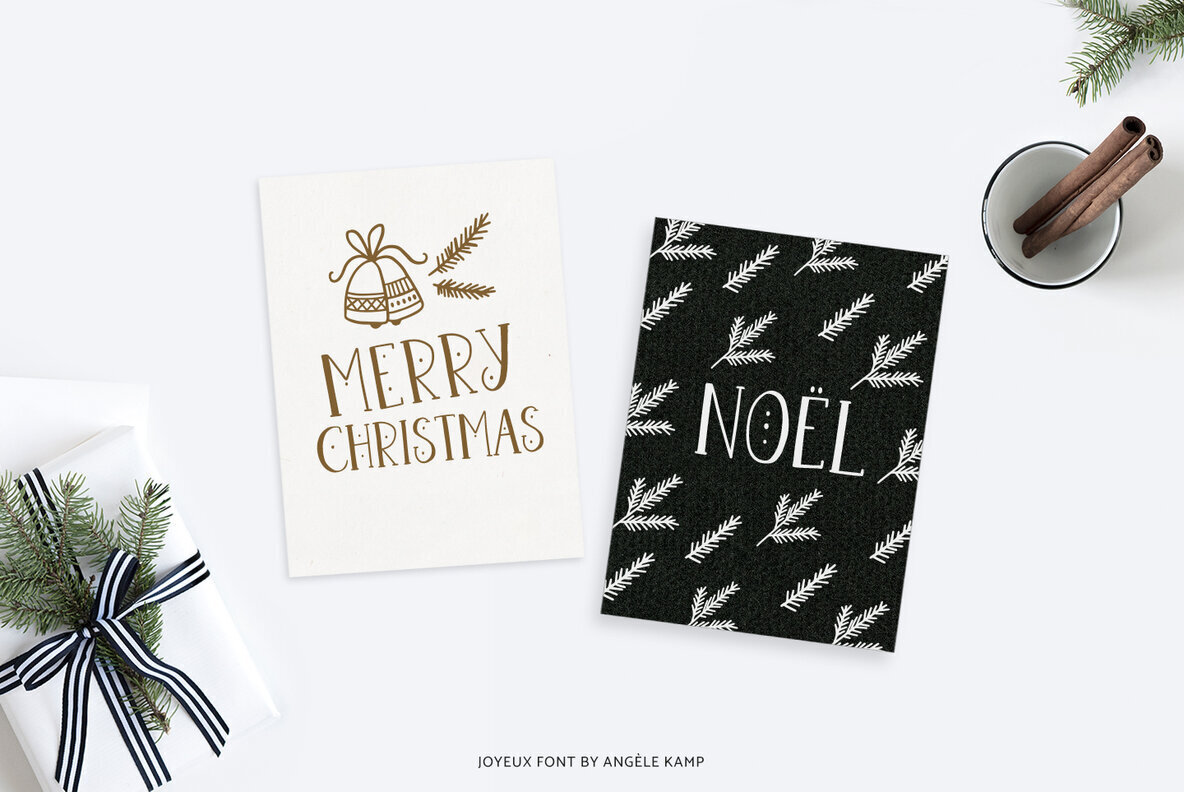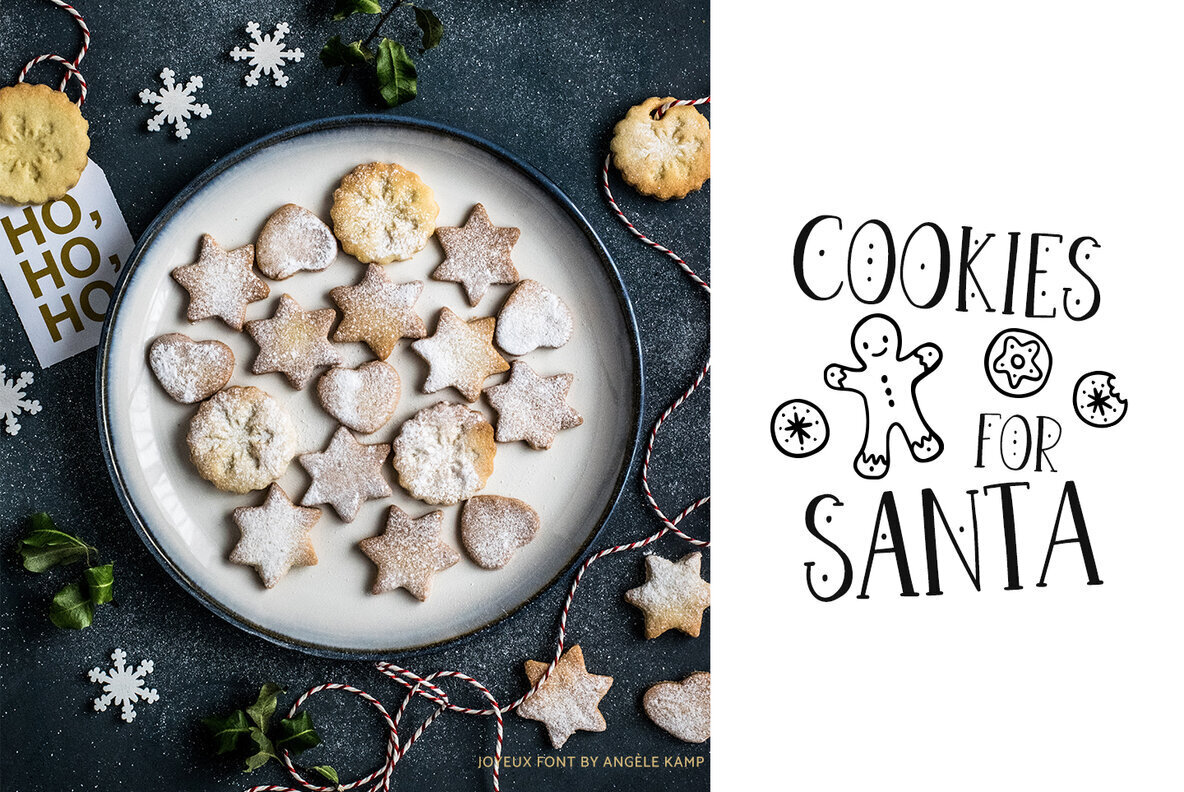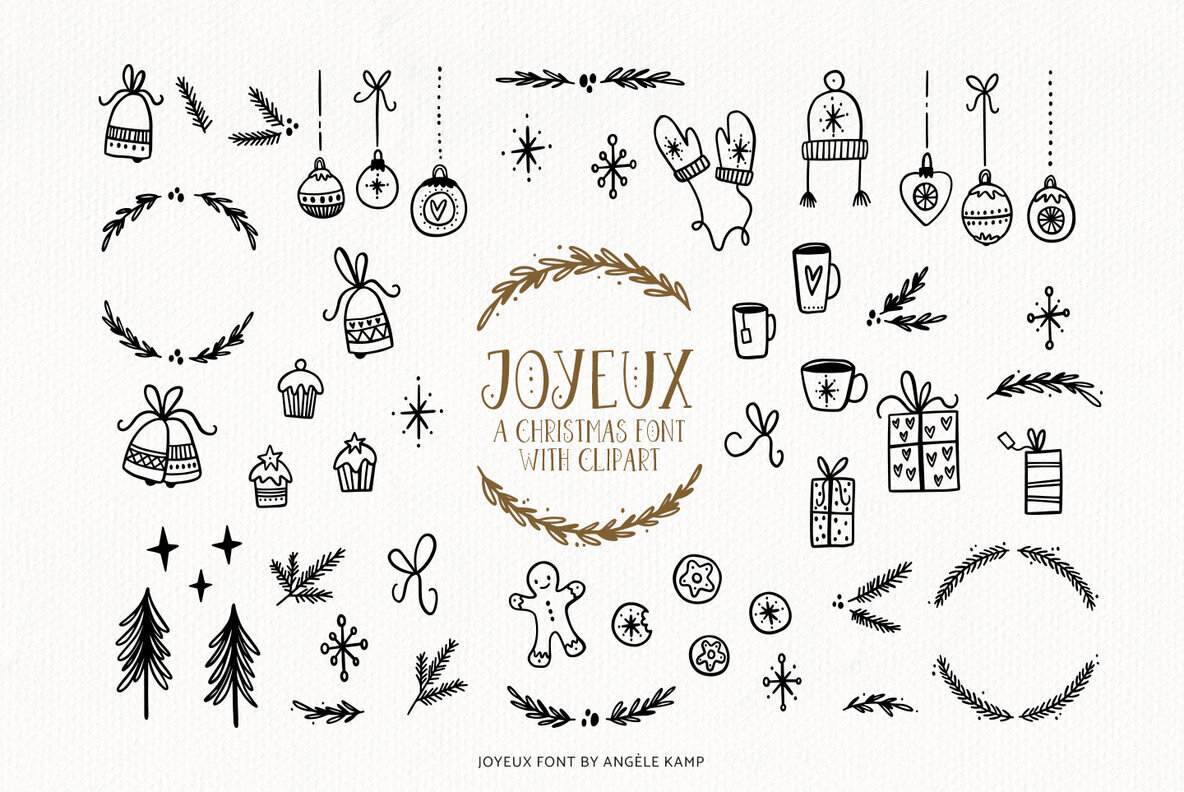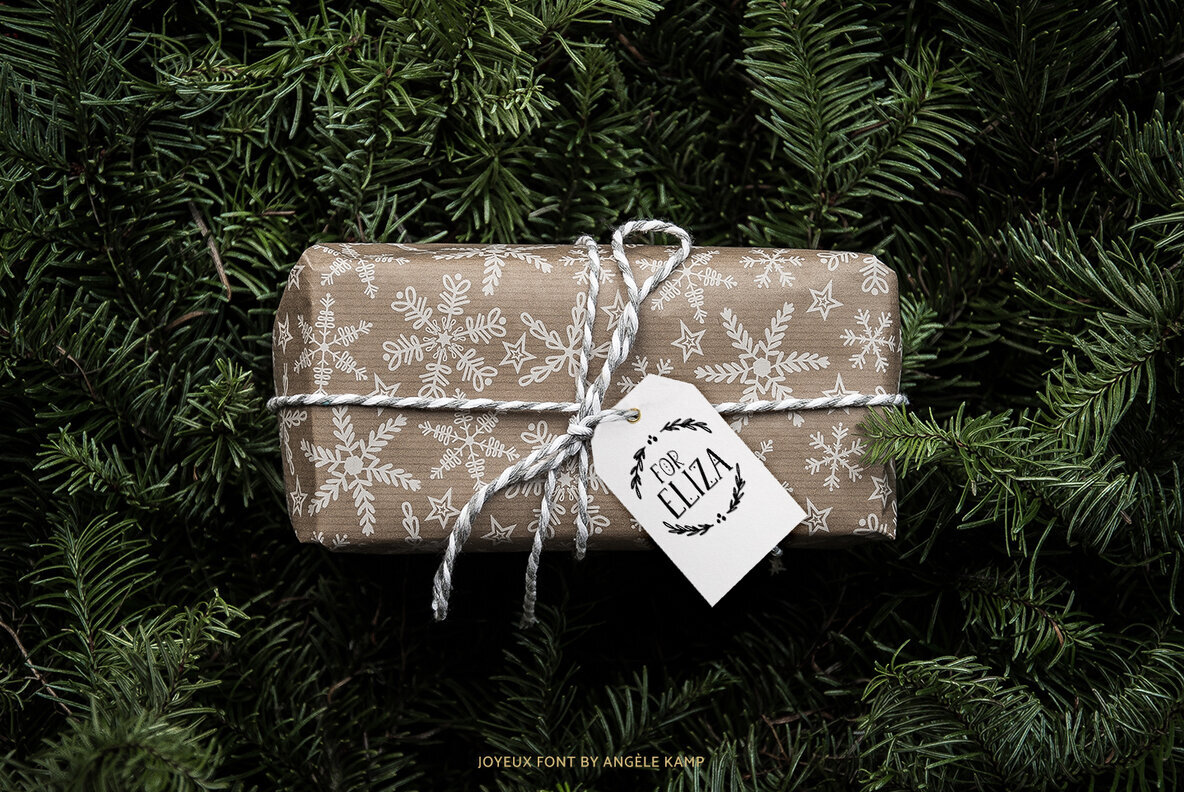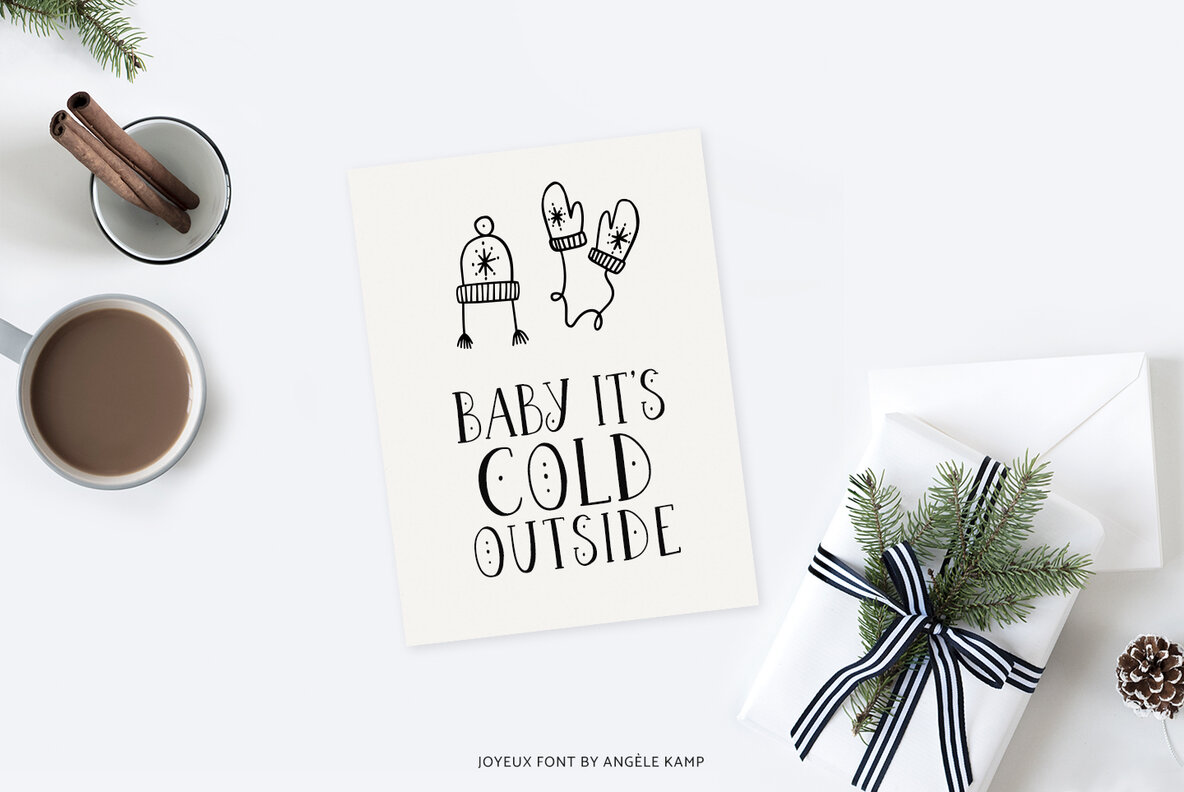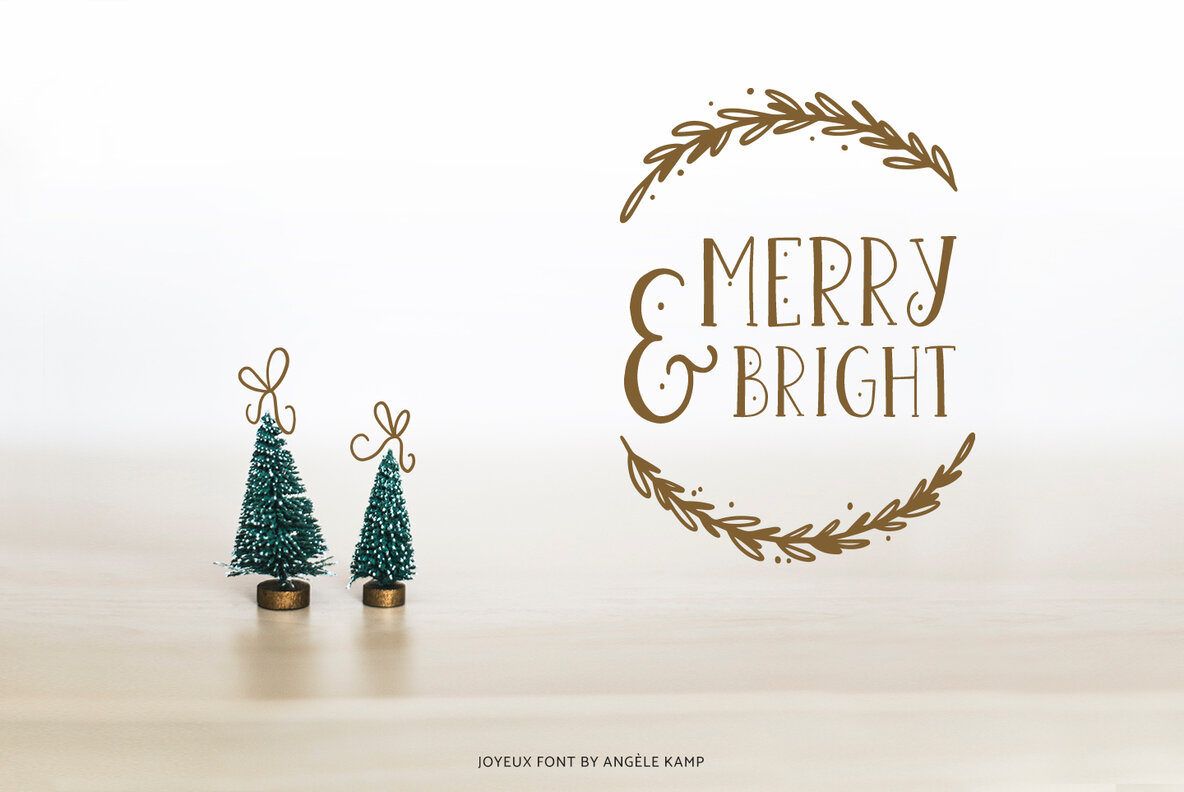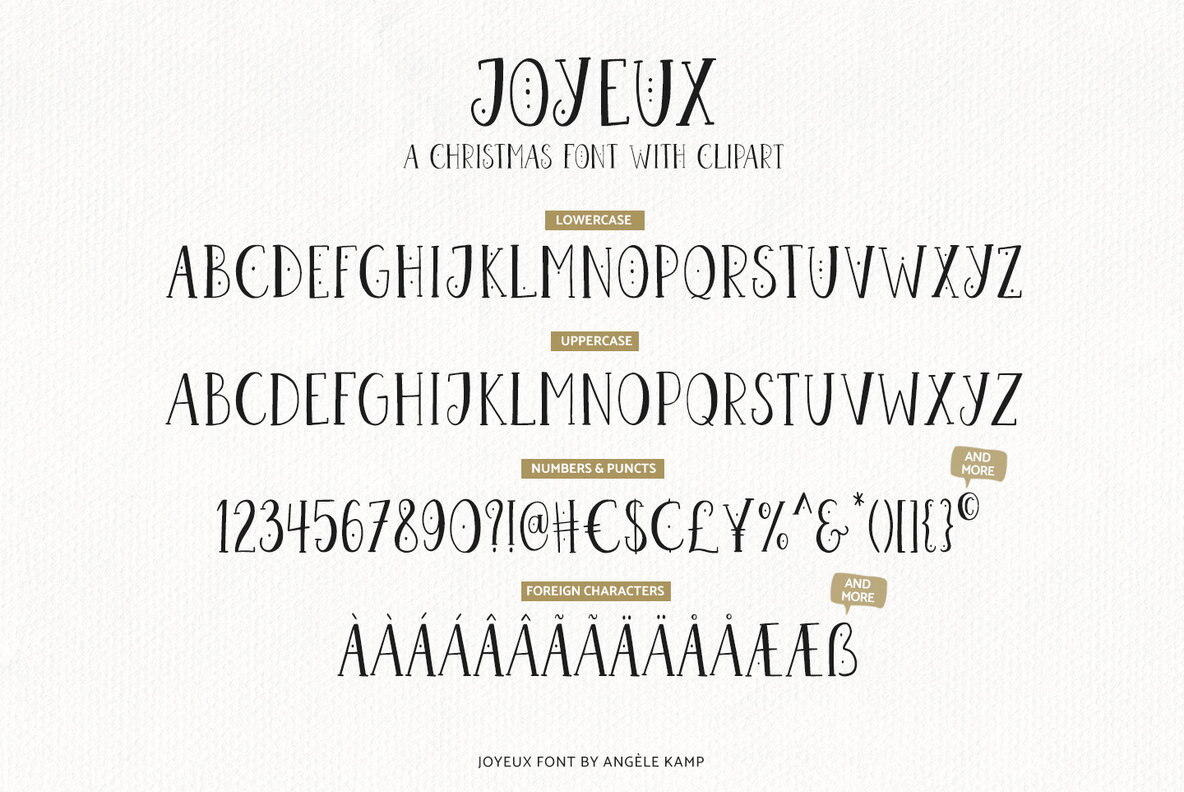
Joyeux Font
Joyeux is a font that will make designing so much fun! It has 52 cute clipart illustrations to help you create.
Angele Kamp is a freelance graphic designer and font maker with a love for hand lettering and photography.